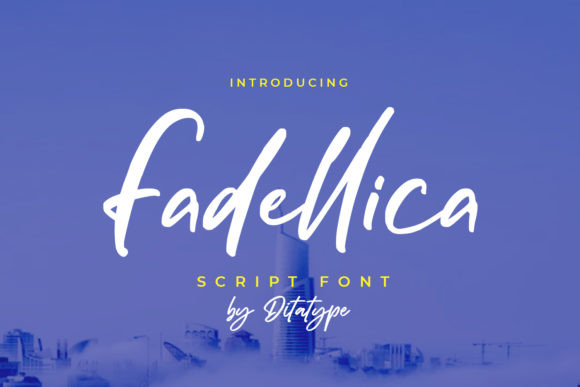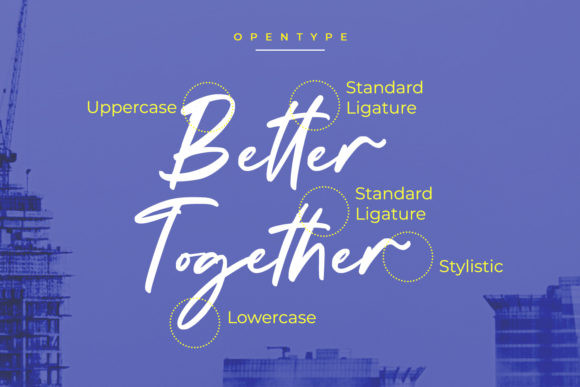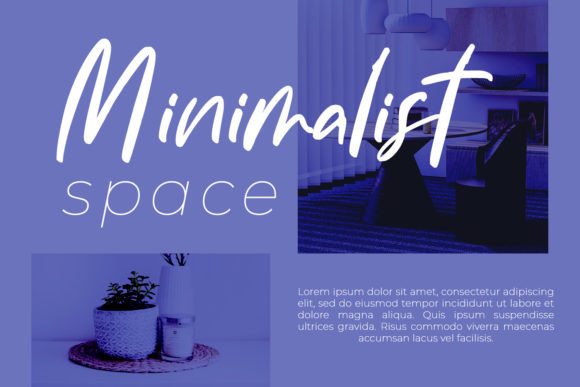
Fadellica Font
Fadellica is a casual and relaxed handwritten font. Every letter has a unique and beautiful touch. Get creative with its incredibly versatile style and use it to make spectacular designs!